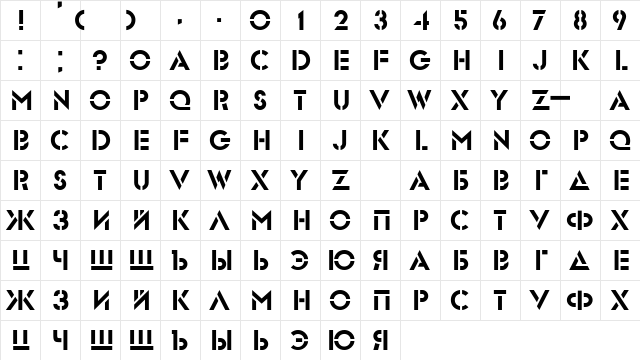
Glasten Bold
Design Context for Glasten Typeface
Glasten takes a measured approach to typography — its balanced proportions and neutral character make it a reliable workhorse for both digital and print work. Its bold stroke weight gives it real presence on the page.
Pro Tip: Use Glasten in both headline and body roles to test its range before committing to a single application.